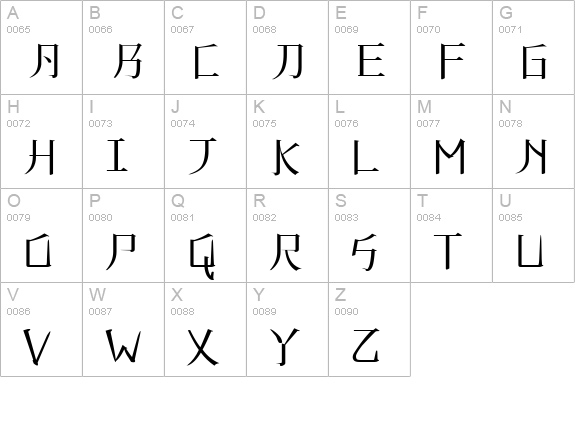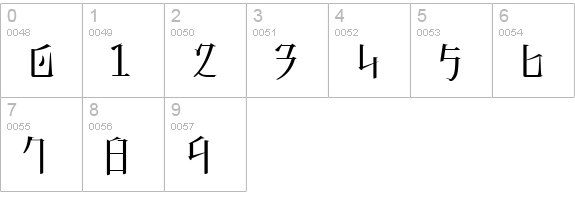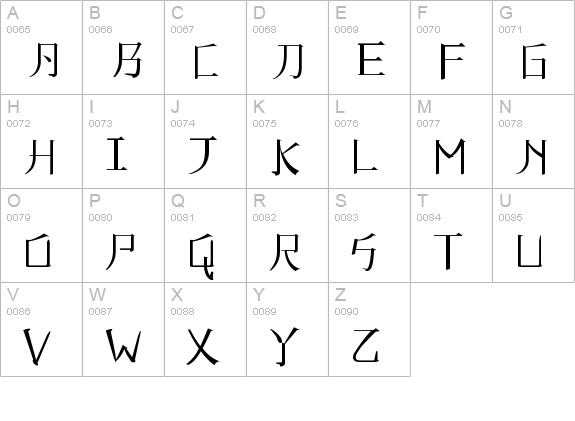
KANEIWA alp regular Font Details
KANEIWA alp regular is the standard, neutral variant in the KANEIWA typeface family \xE2\x80\x94 well suited to general body text, paragraphs, and standard typographic work.
KANEIWA alp regular font is a sleek and modern typeface that exudes sophistication and style. With its clean lines and sharp edges, this font is perfect for a wide range of design projects, from branding to editorial layouts. The versatility of KANEIWA alp regular font makes it a must-have for any designer looking to make a statement. And the best part? KANEIWA alp regular font is available for free download at FontsMarket.com. So whether you're a seasoned designer or just starting out, you can easily access this high-quality font and take your projects to the next level. Don't miss out on the opportunity to add KANEIWA alp regular font to your font library today!